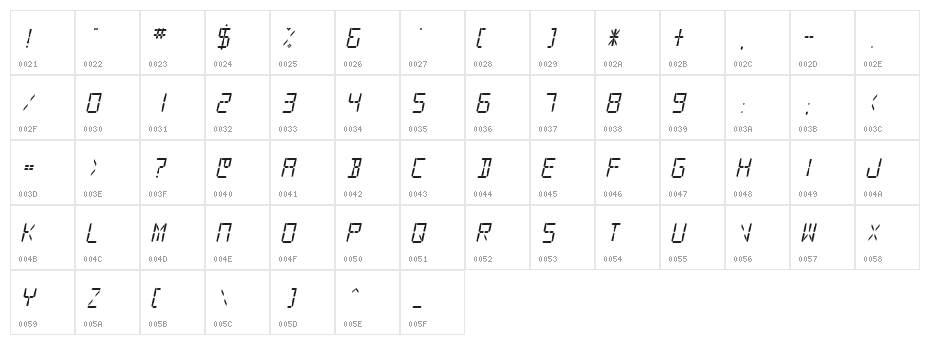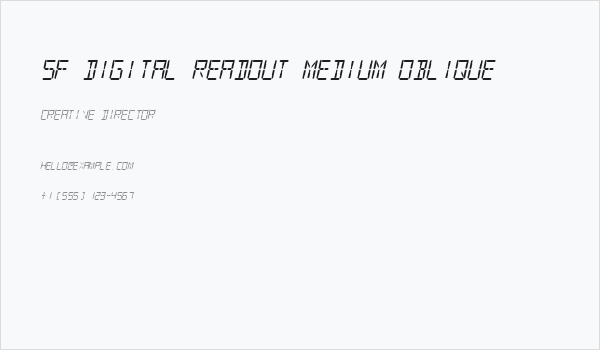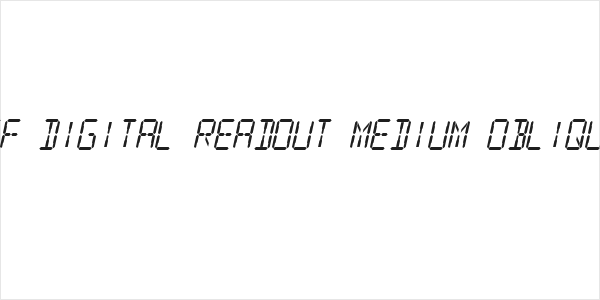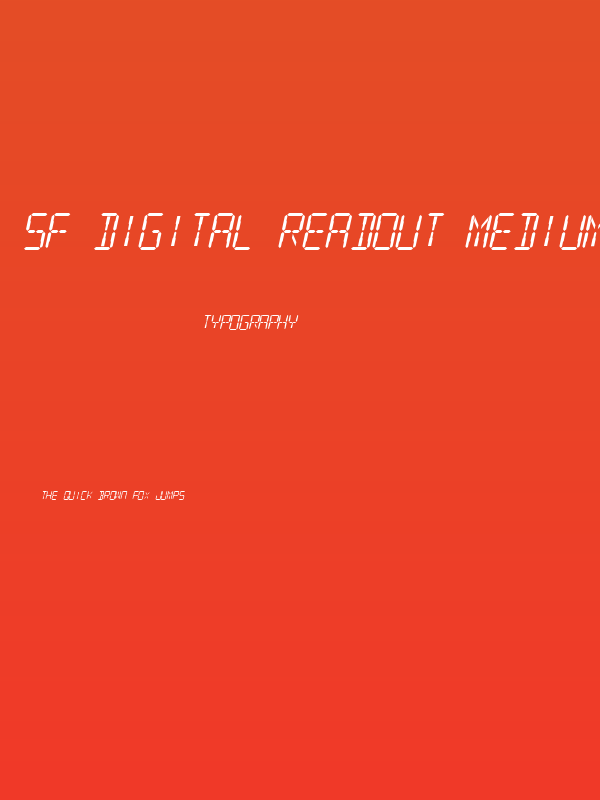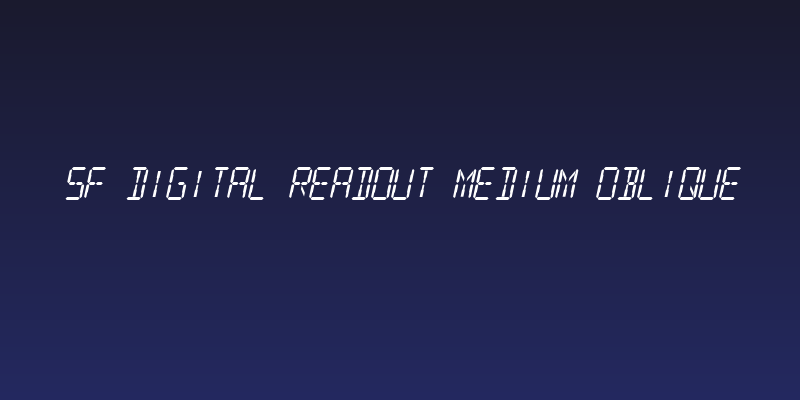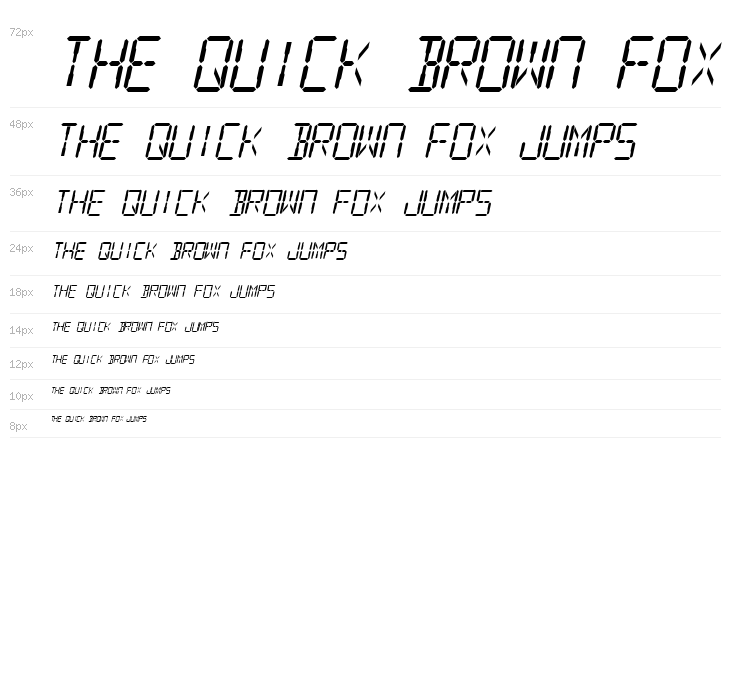
SF Digital Readout Medium Oblique Font
SF Digital Readout Medium Oblique Description
This font features a digital, futuristic style reminiscent of old digital displays or LED screens. The characters are composed of segmented lines, giving them a geometric and technical appearance. The oblique slant adds a dynamic and modern touch, enhancing the sense of movement and speed. Each letter and number is distinct, with sharp angles and a consistent structure that maintains readability. The font is well-suited for digital-themed projects, offering a nostalgic yet contemporary feel. Special characters are designed to match the segmented style, ensuring a cohesive look across all glyphs.
| Use Case | Headlines, Logos, Digital displays |
| Proposed Projects | Perfect for digital interfaces, tech branding, retro-themed designs, and futuristic displays. |